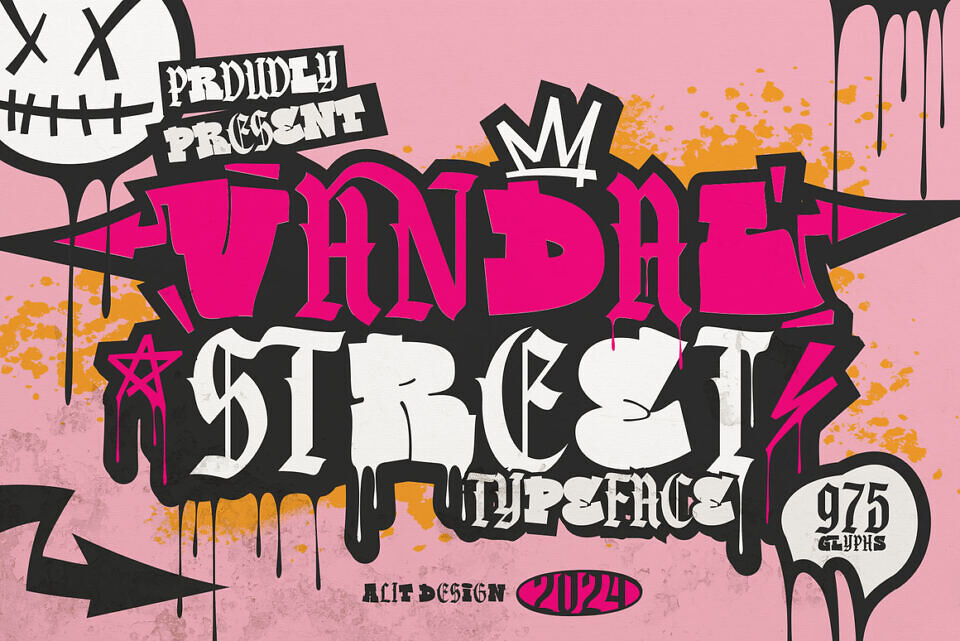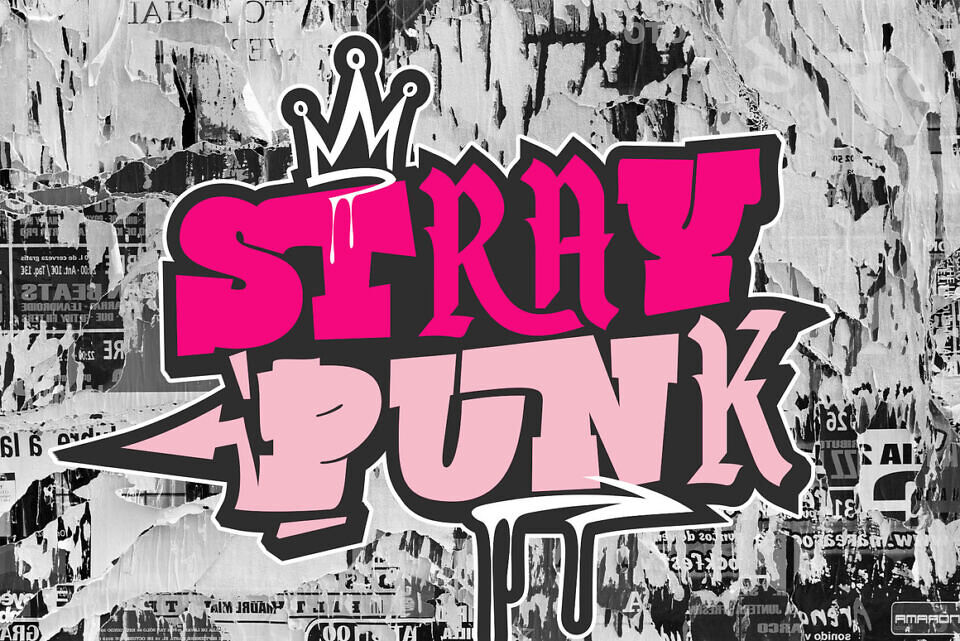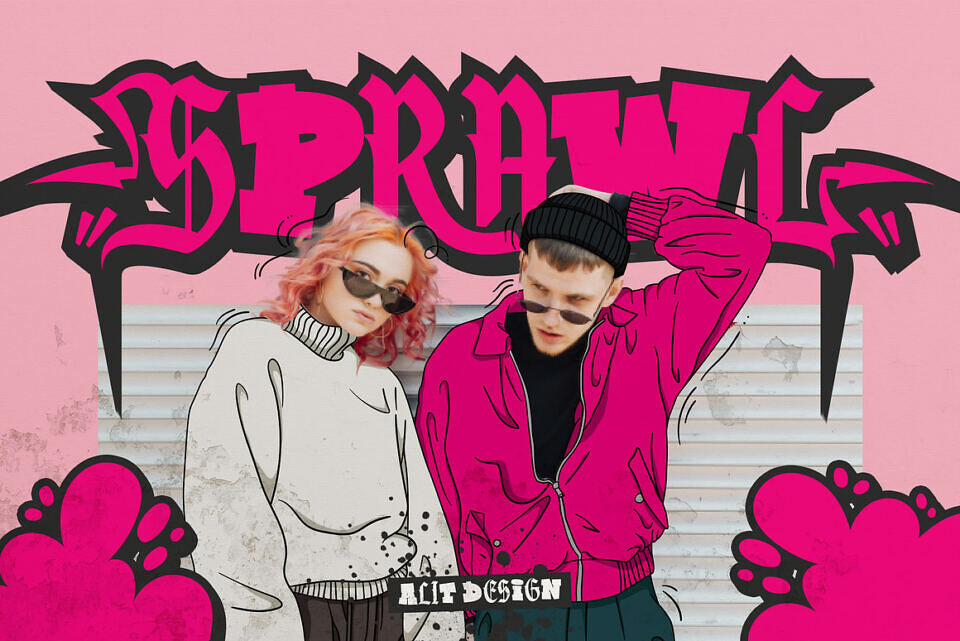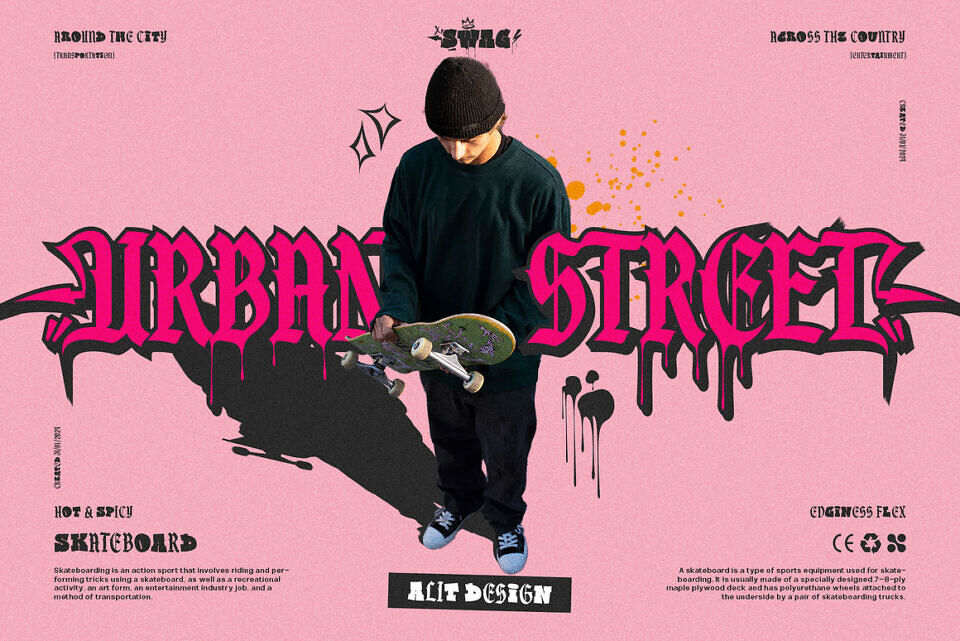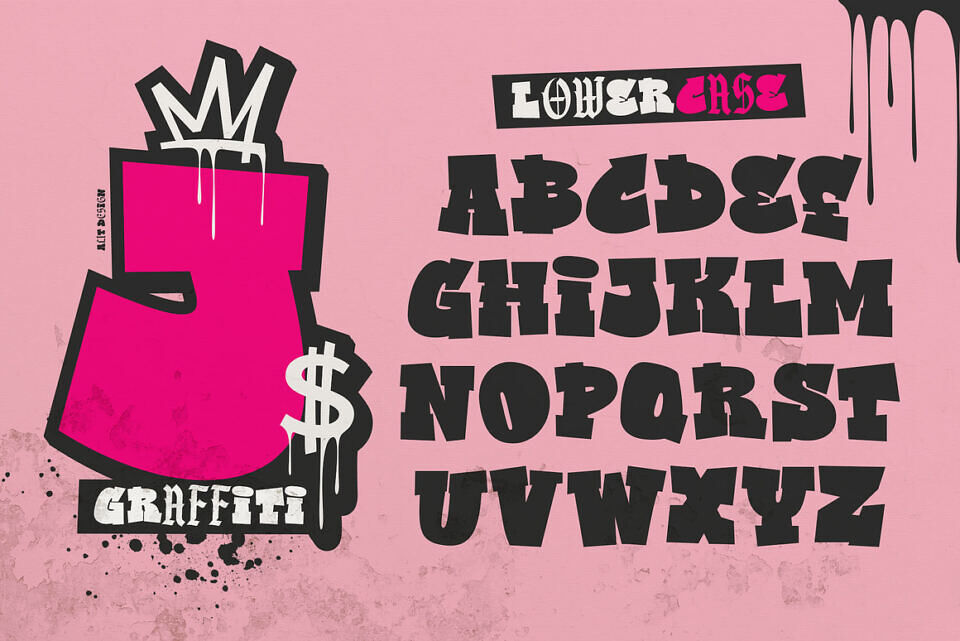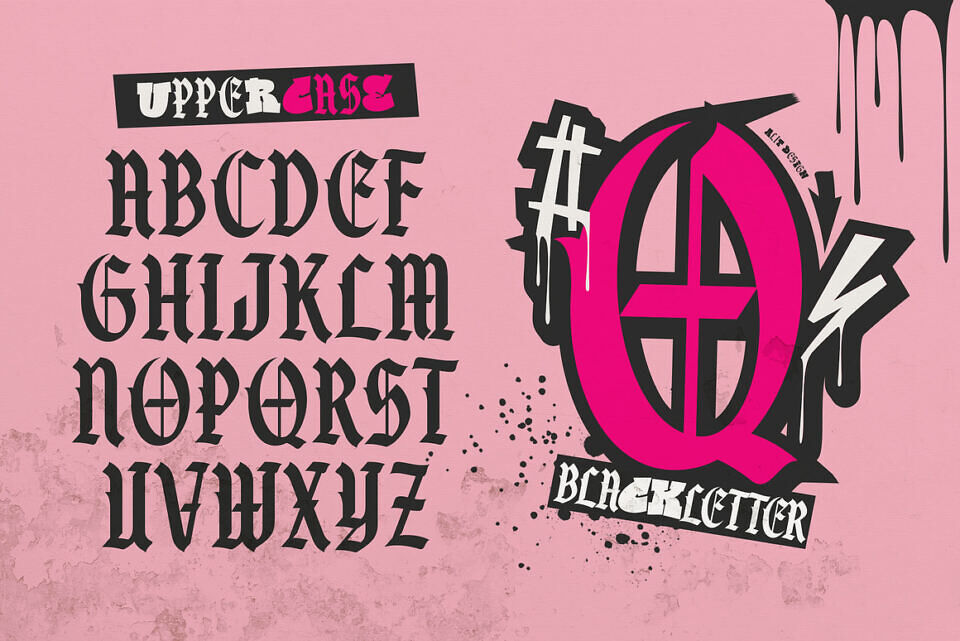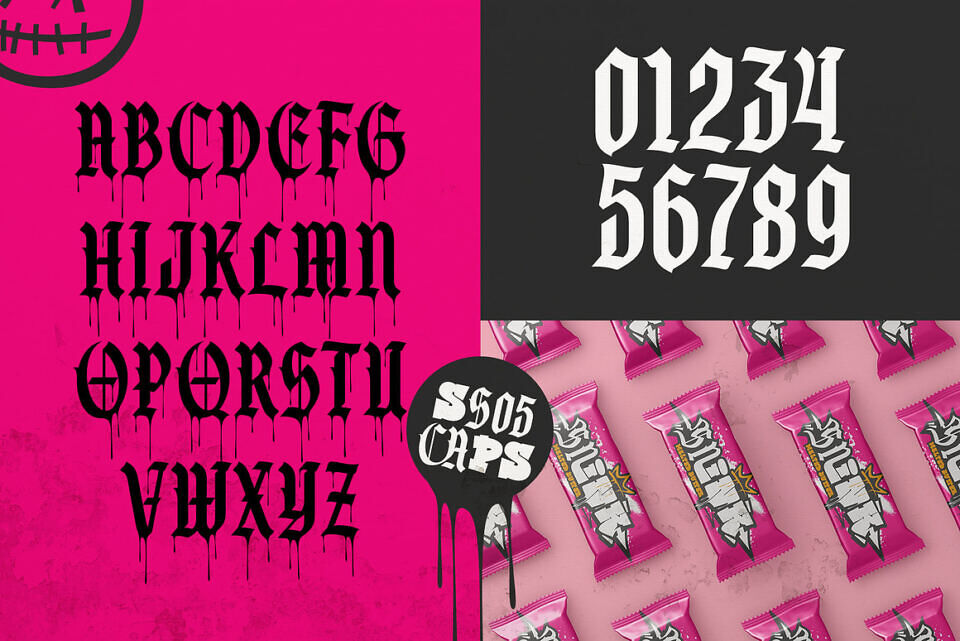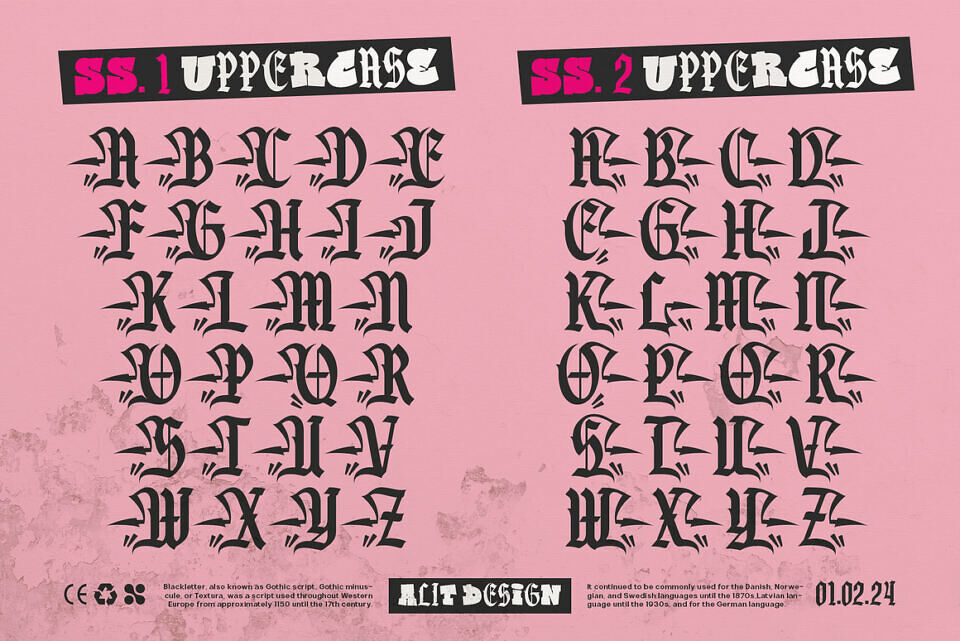
Vandal Street Graffiti Font is a bold typeface that fuses the raw energy of graffiti with the intricate style of blackletter. Inspired by urban street culture, its thick, fat lettering brings powerful visual impact and rebellious flair.
The font captures the movement and spontaneity of graffiti tags while incorporating sharp, angular blackletter details for a unique, expressive twist. Ideal for posters, branding, and street-style designs, it features a full character set with uppercase, lowercase, numerals, punctuation, and symbols. Perfect for digital and print, it delivers a gritty yet artistic aesthetic that stands out.